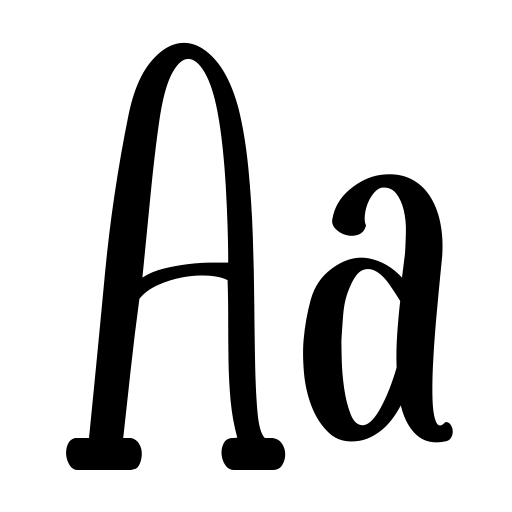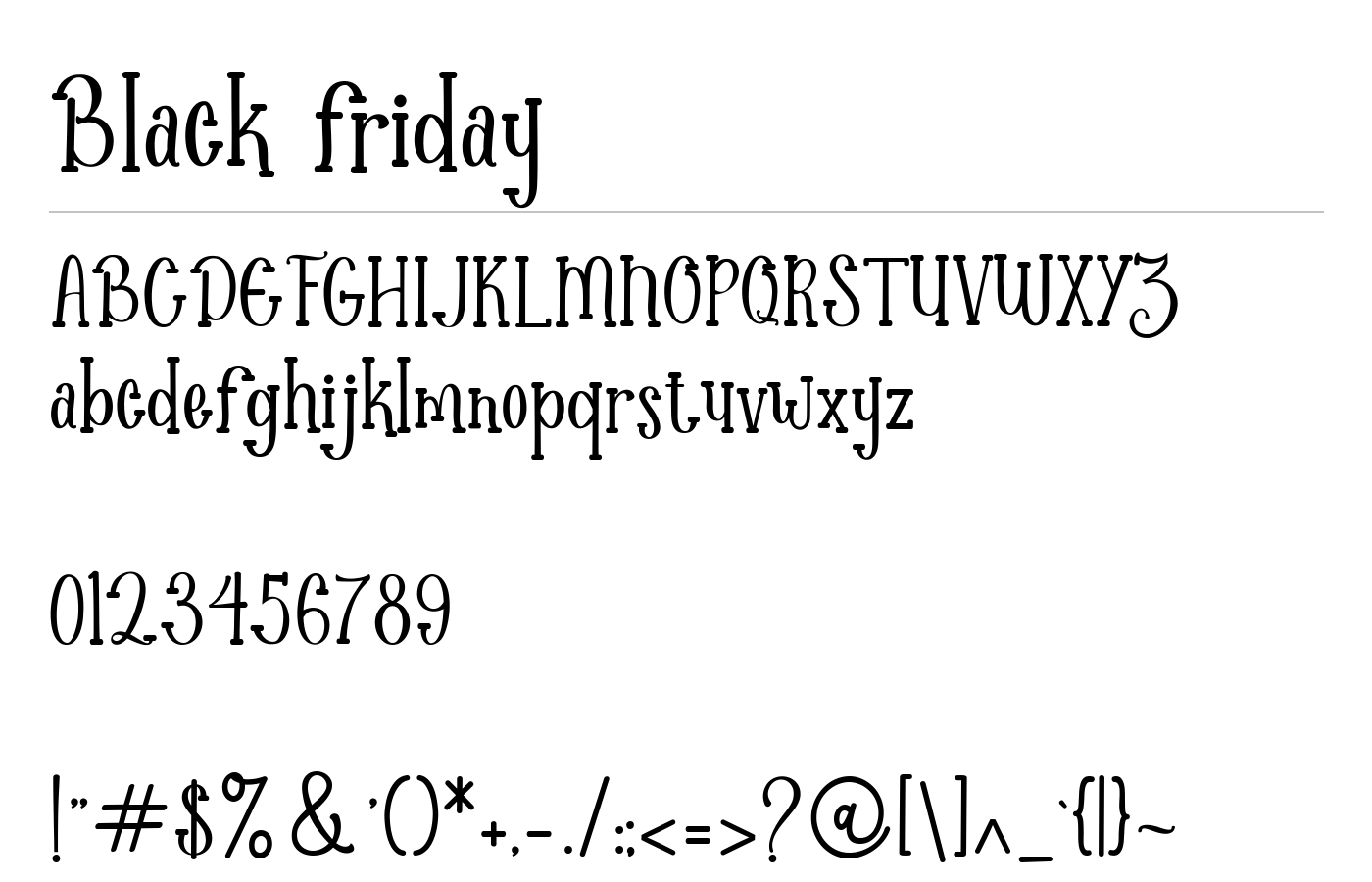
Black Friday is a playful and quirky serif font characterized by tall, narrow letterforms with delicate, rounded serifs and a hand-crafted feel. Its unique charm comes from whimsical details like curled terminals and varying stroke widths, making it perfect for creative, informal designs such as event promotions, posters, and boutique branding where a distinctive, friendly personality is desired. This font adds a touch of vintage flair while remaining approachable and engaging.
Black friday Font
About Black friday Font
| Font family | Black friday Font |
| Designer | Amarlettering_Takiyuddin |